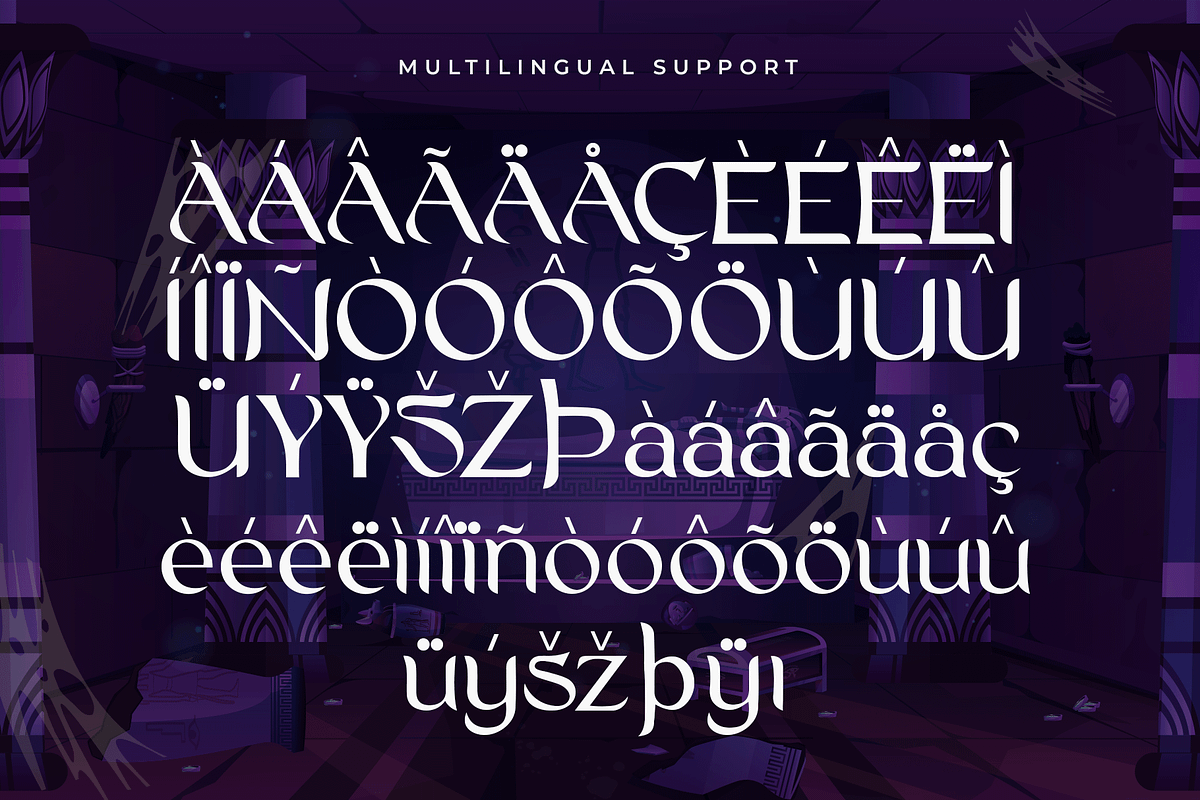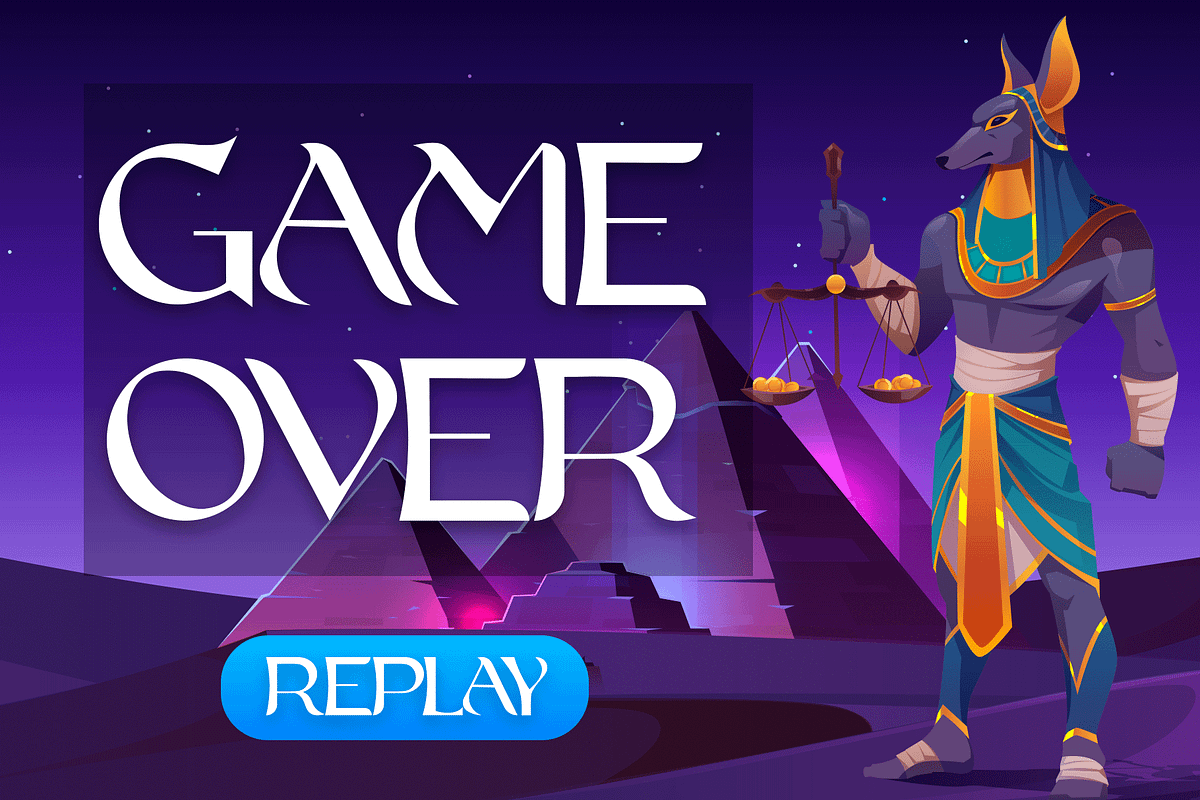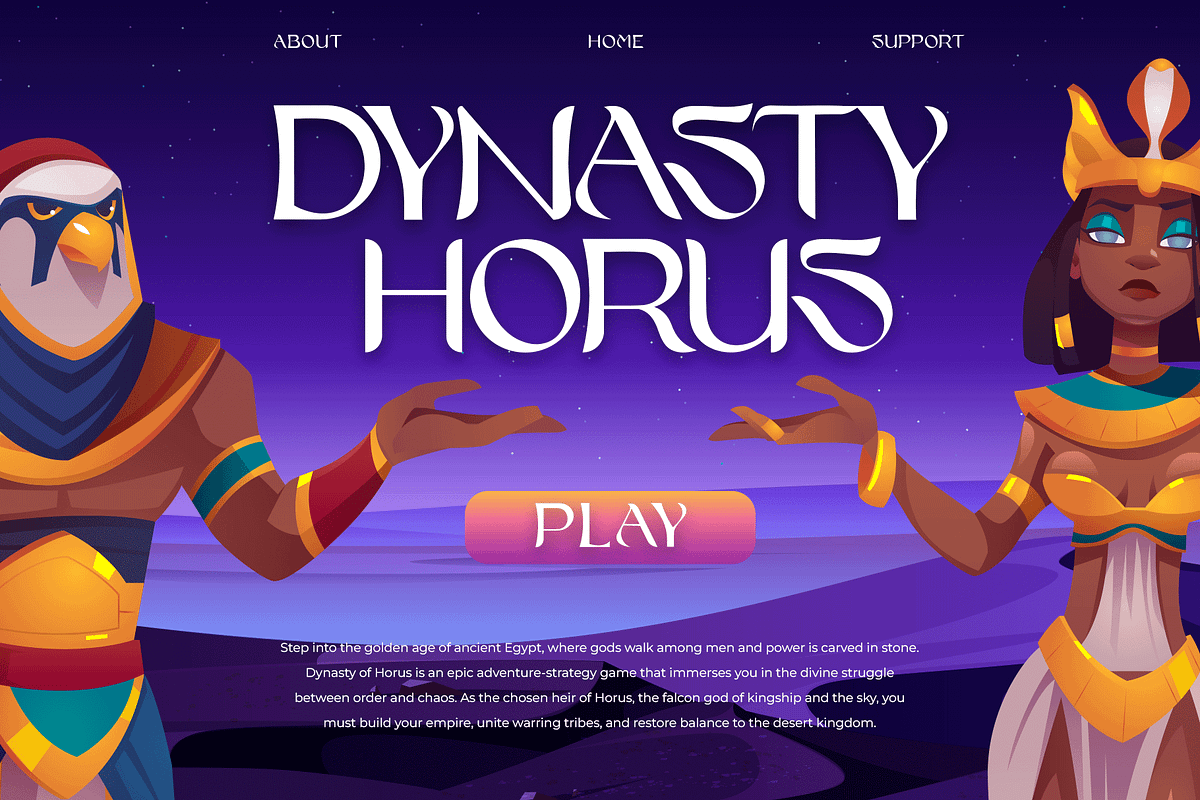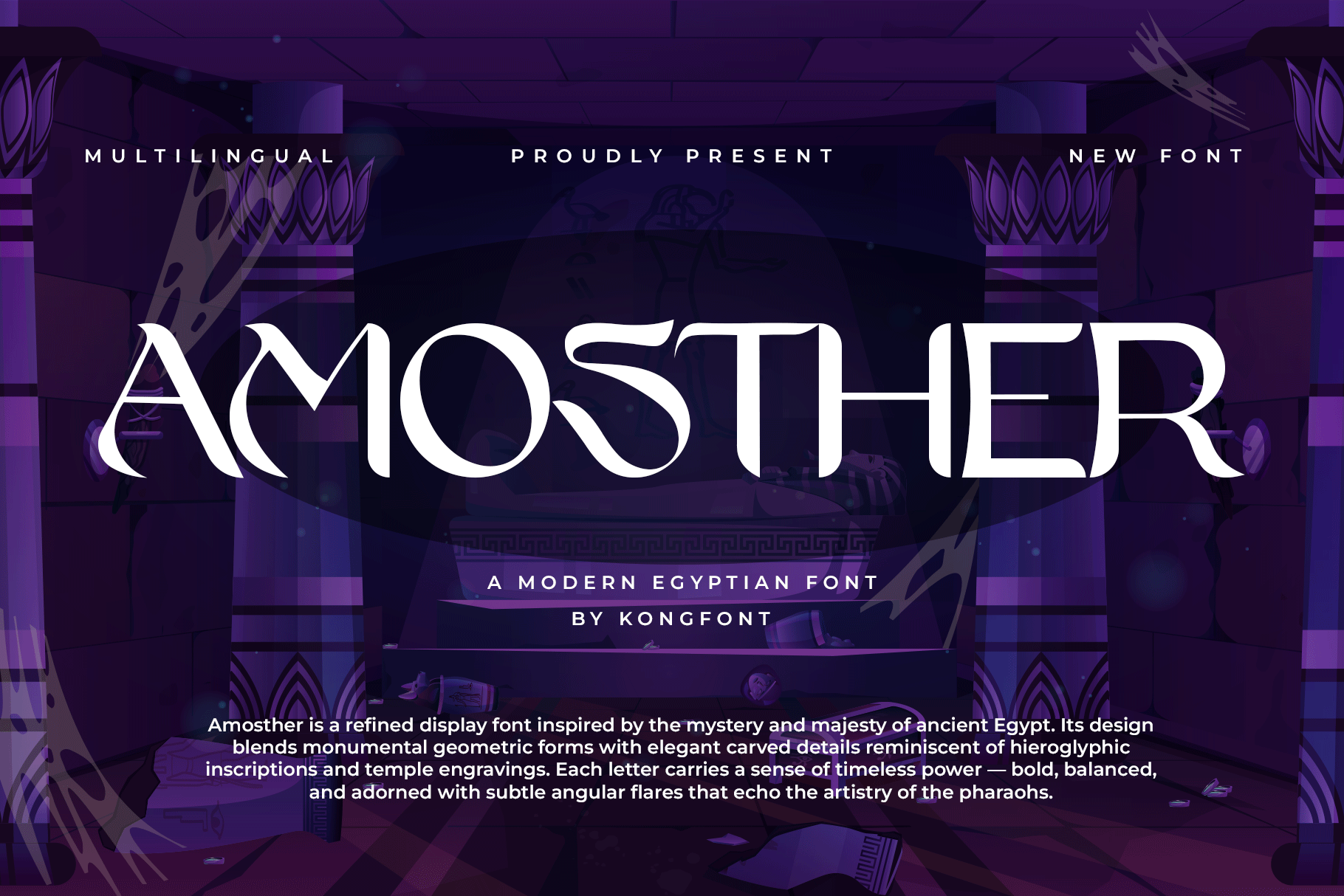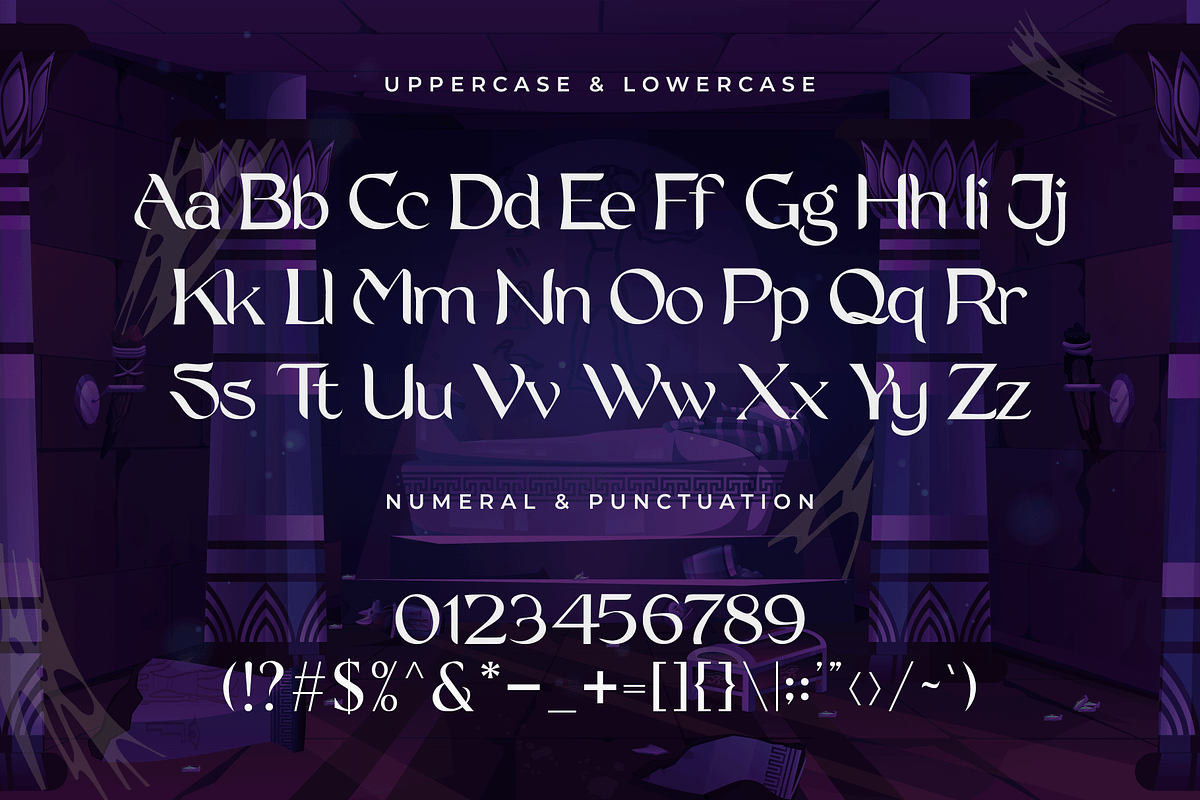
Amosther – Modern Egyptian Font
Introducing Amosther, a modern Egyptian font that beautifully blends the grandeur of ancient hieroglyphic inspiration with the precision of contemporary typography. Its strong geometric forms and distinctive serifs evoke the timeless artistry of ancient Egypt while maintaining a clean, modern appeal for today’s design needs.
Amosther is perfect for projects that aim to convey strength, mystery, and elegance from branding and packaging to posters, titles, and historical themed designs. Each letterform is meticulously crafted to balance ornamental detail with functional readability, making it ideal for both display and decorative use.
Elevate your creative projects with Amosther, where ancient heritage meets modern sophistication.